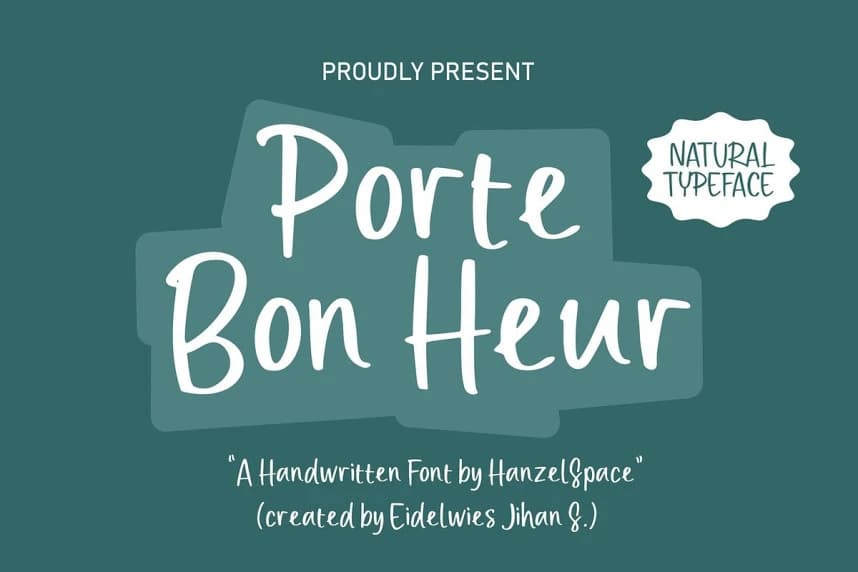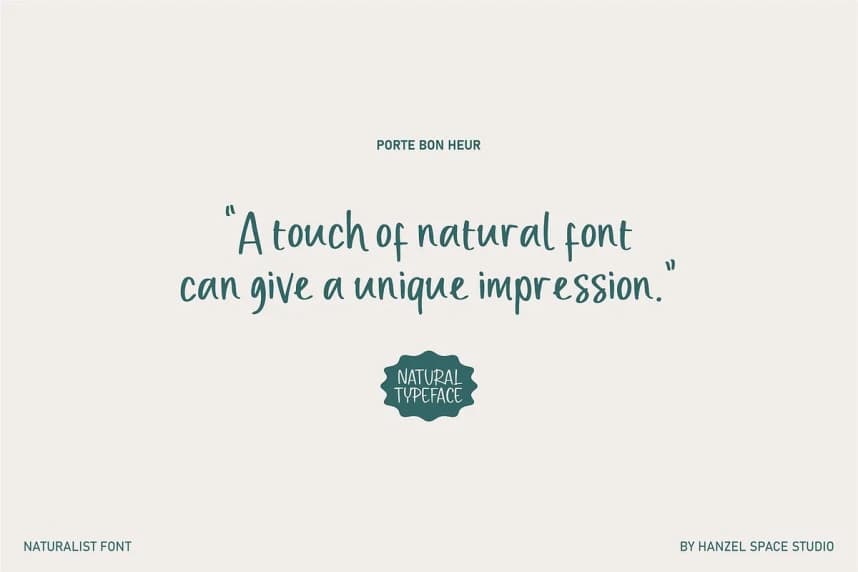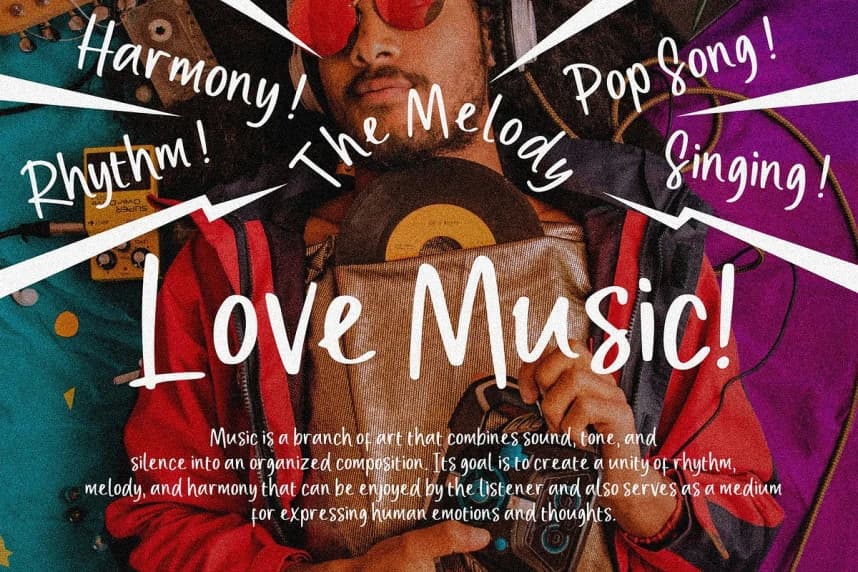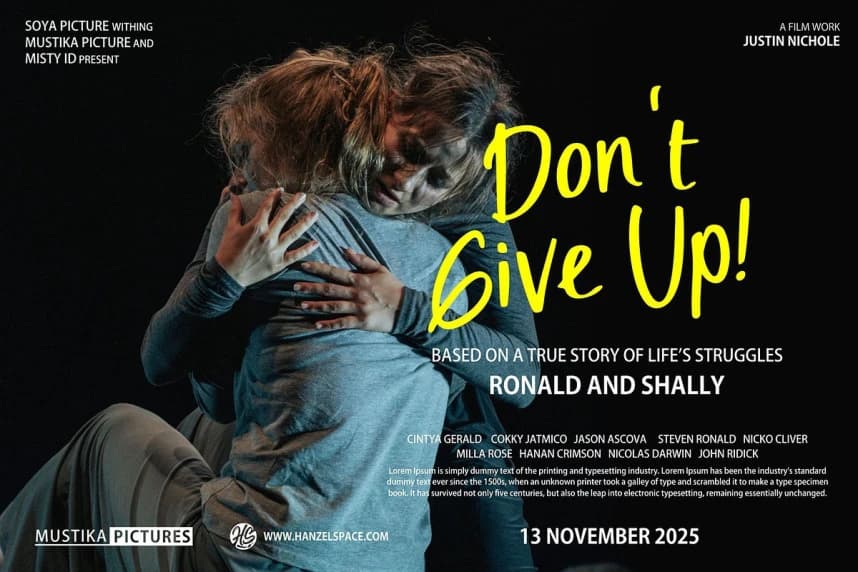
Porte Bon Heur Font
Porte Bon Heur Font - is a natural handwritten font with an expressive, slightly imperfect handwriting feel. This font presents a unique, authentic stroke. This type of font perfectly made to be applied especially in logo, headline